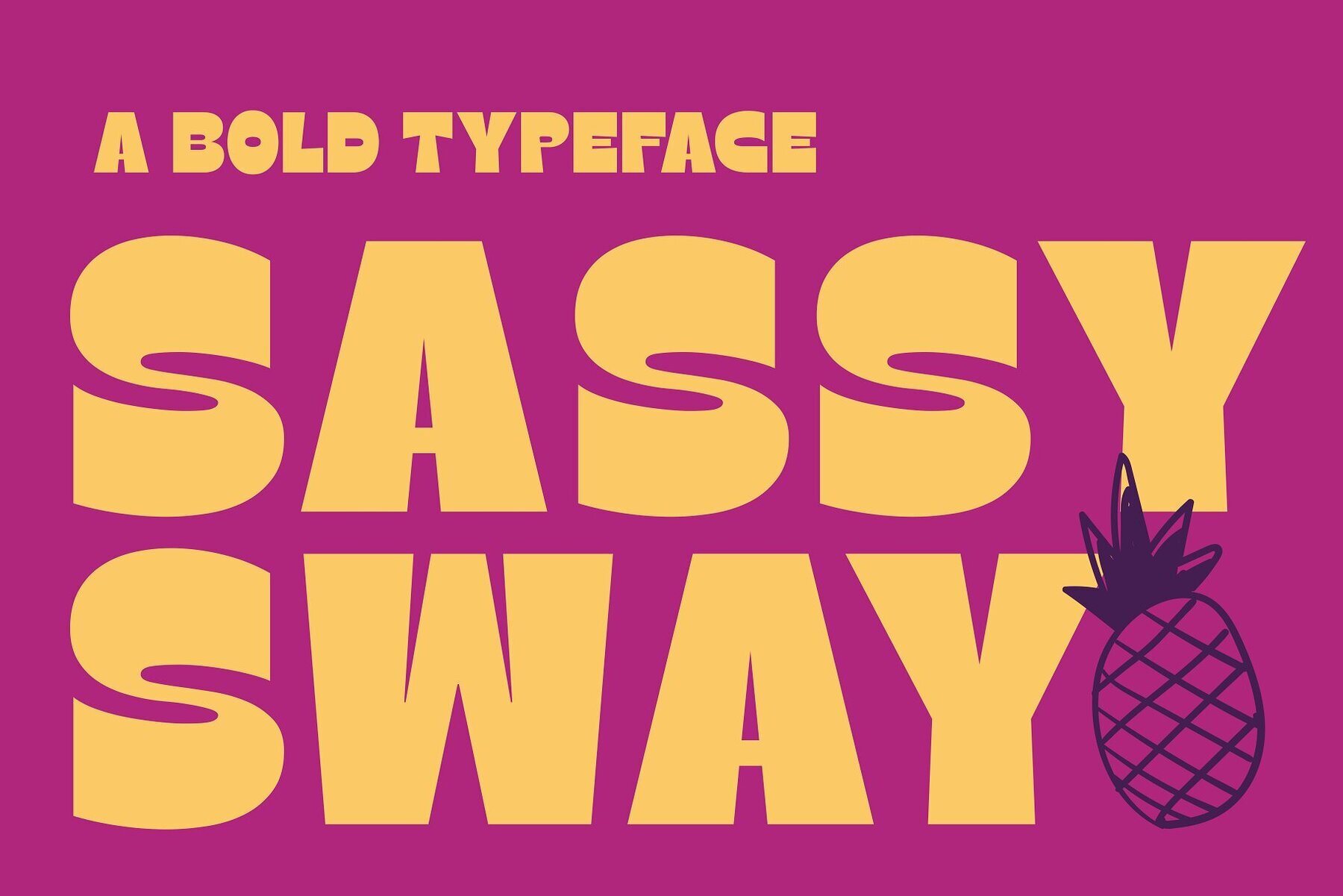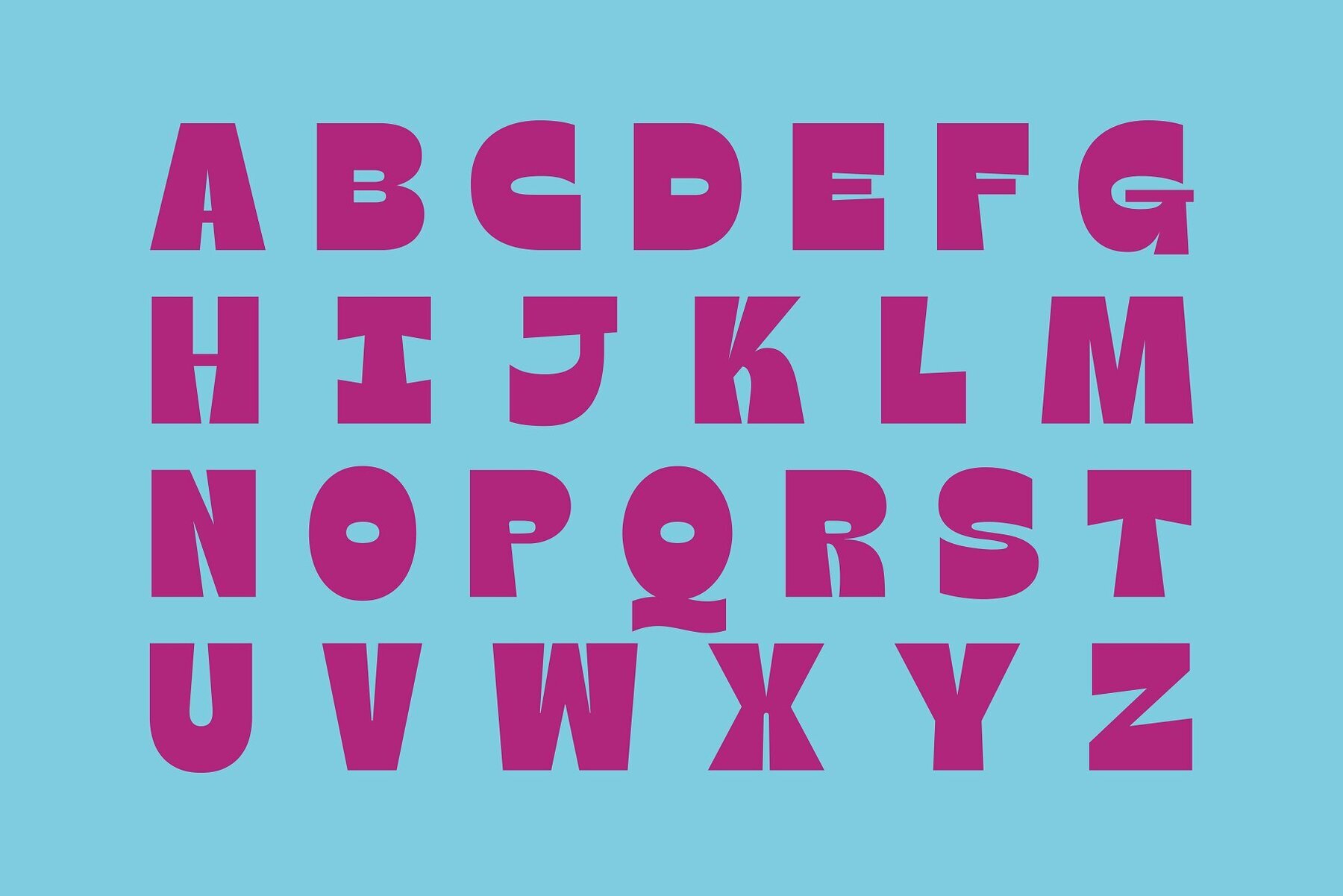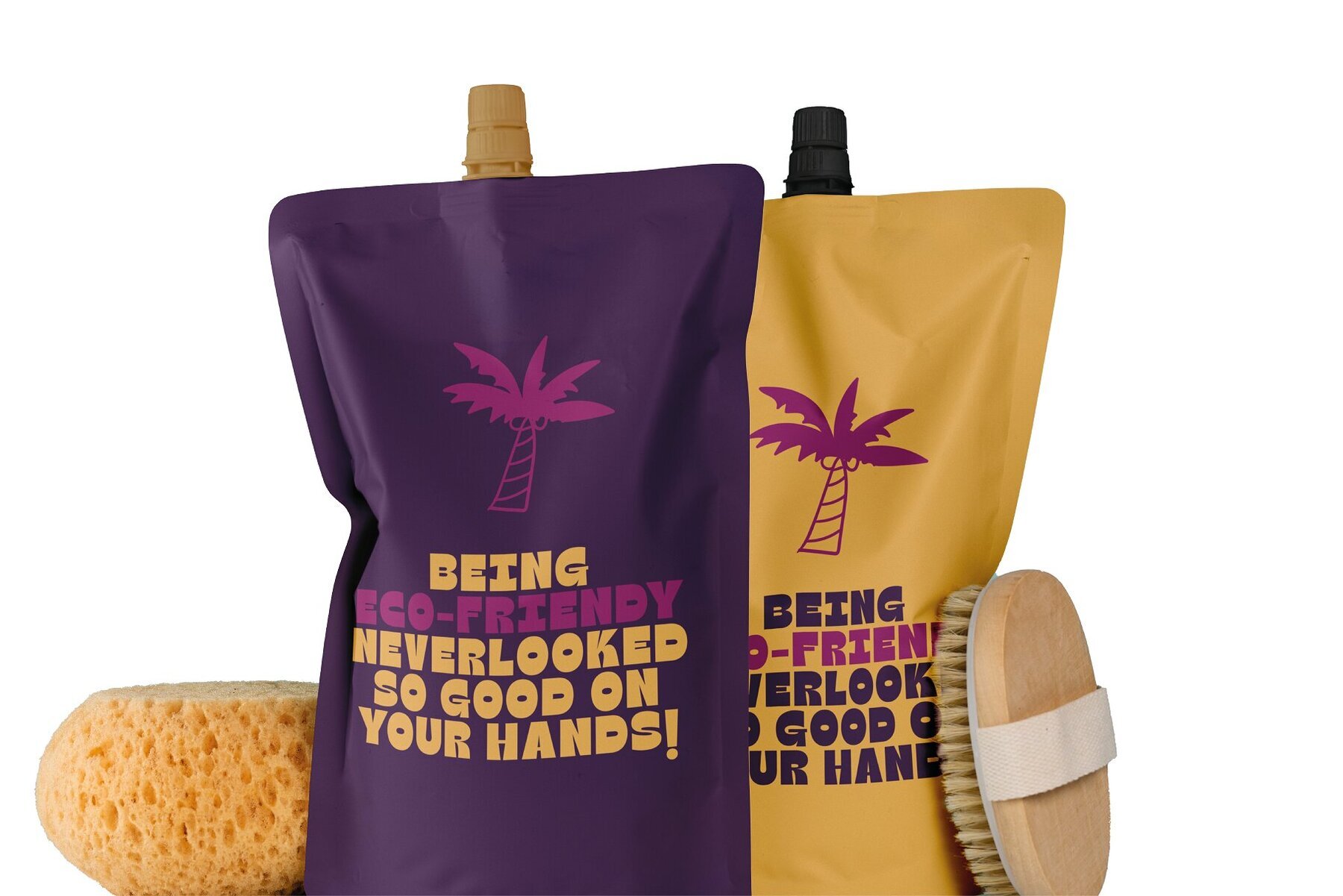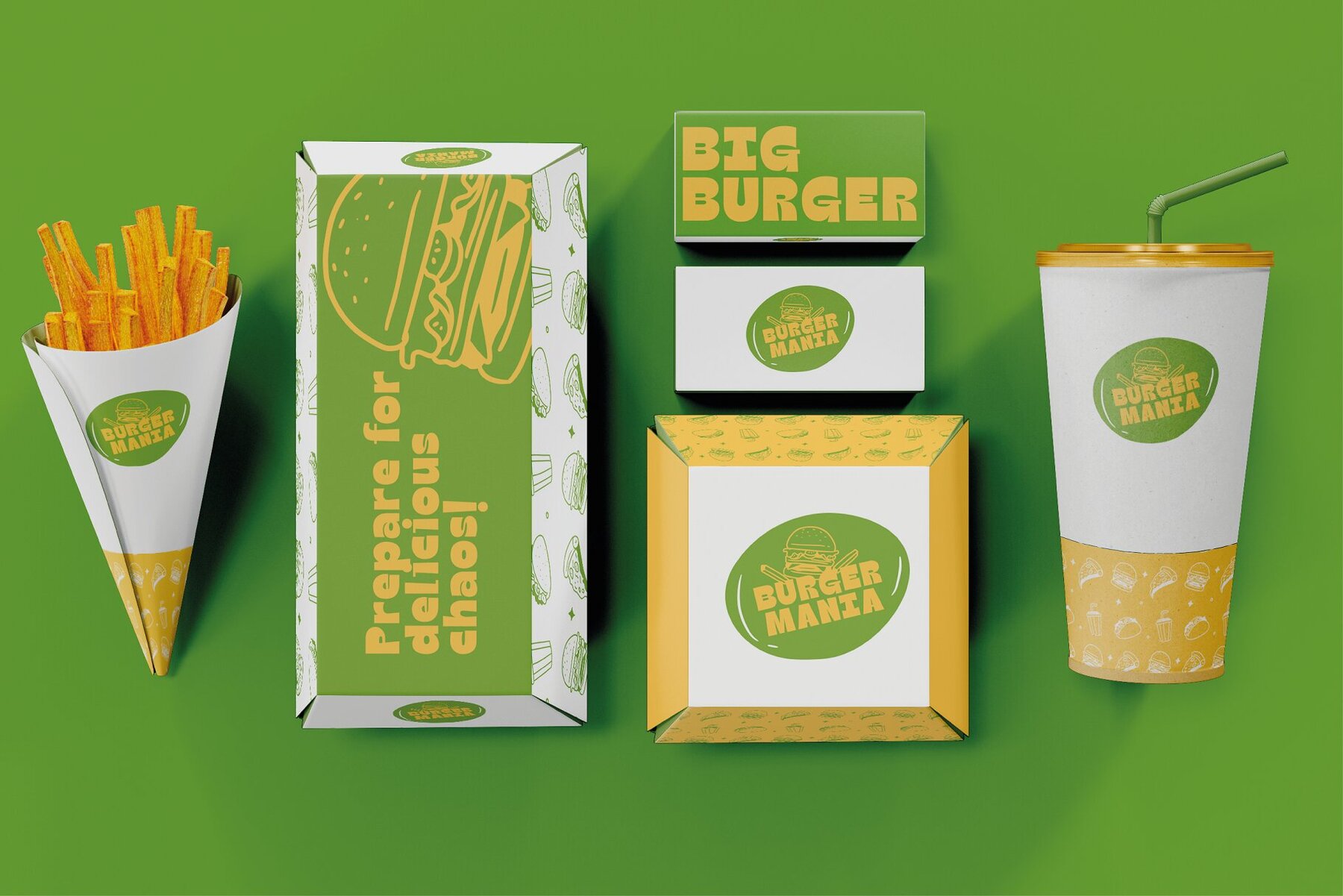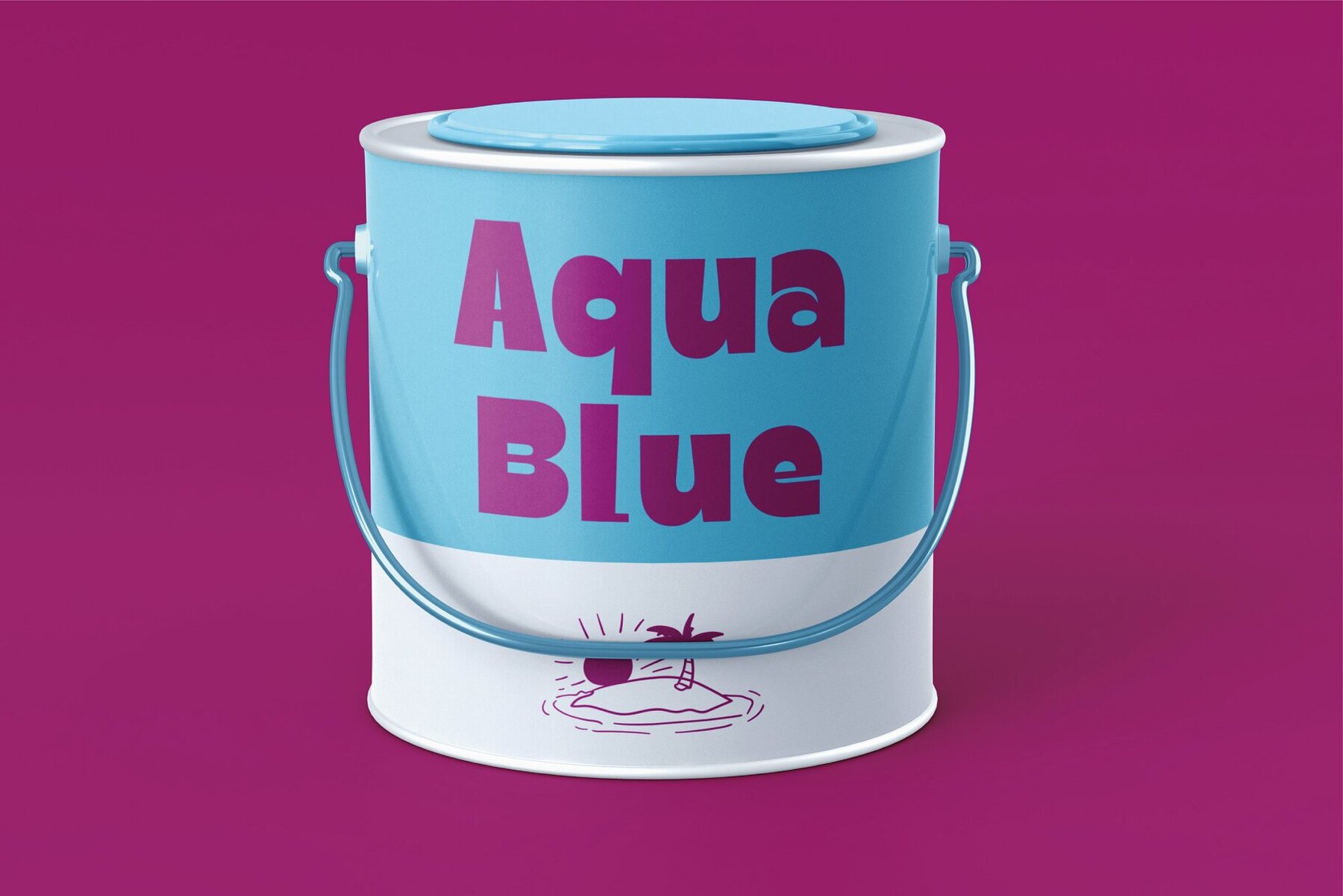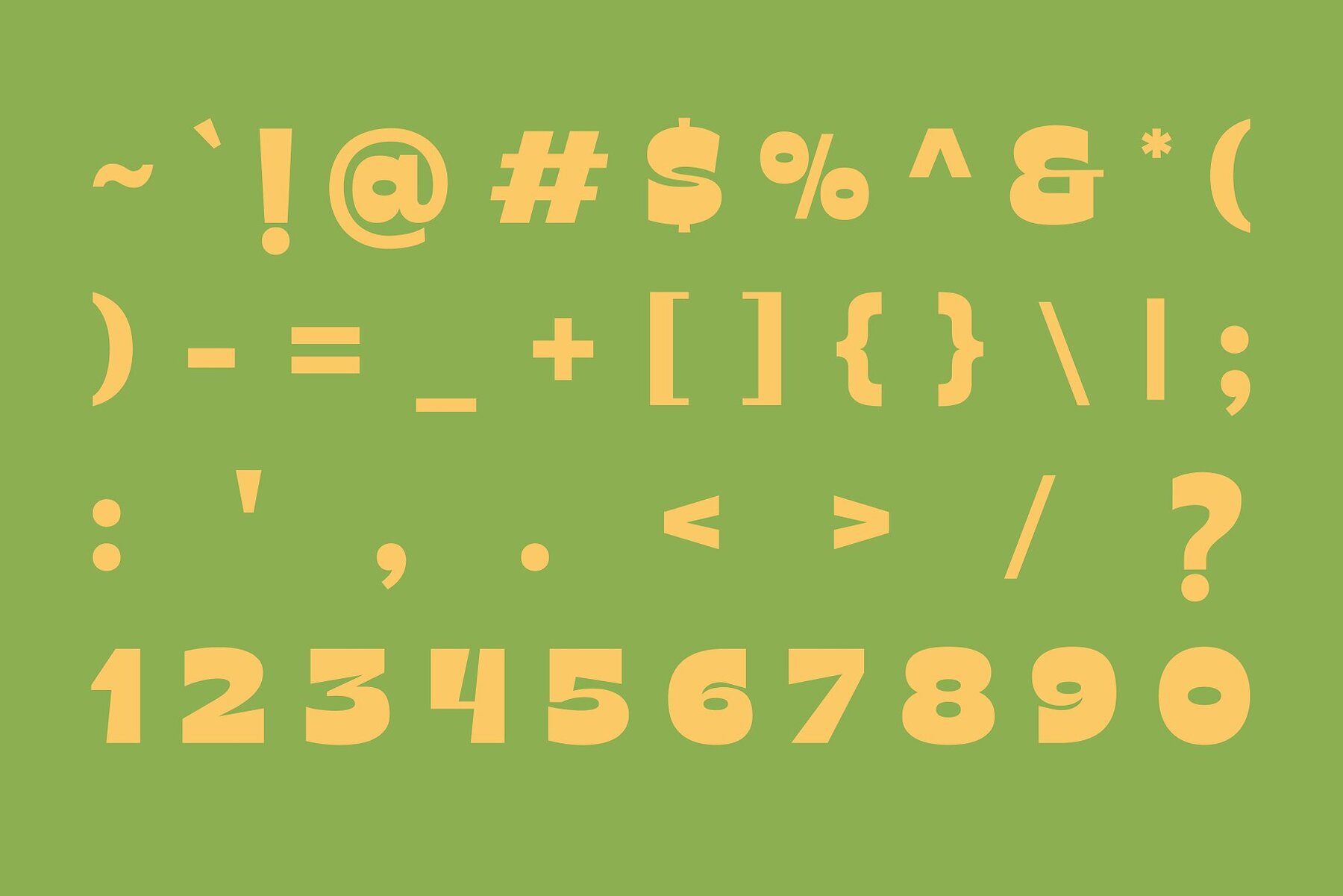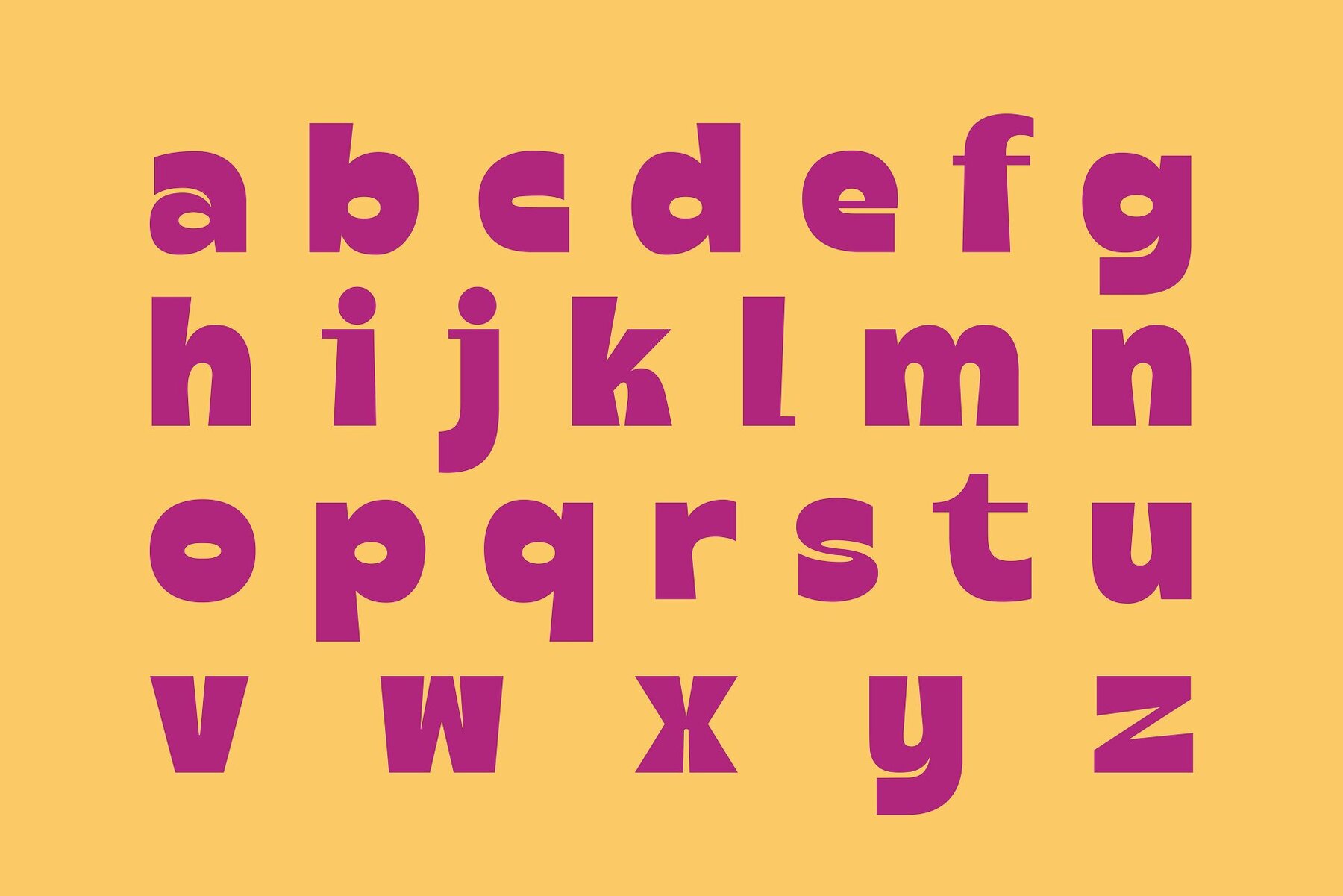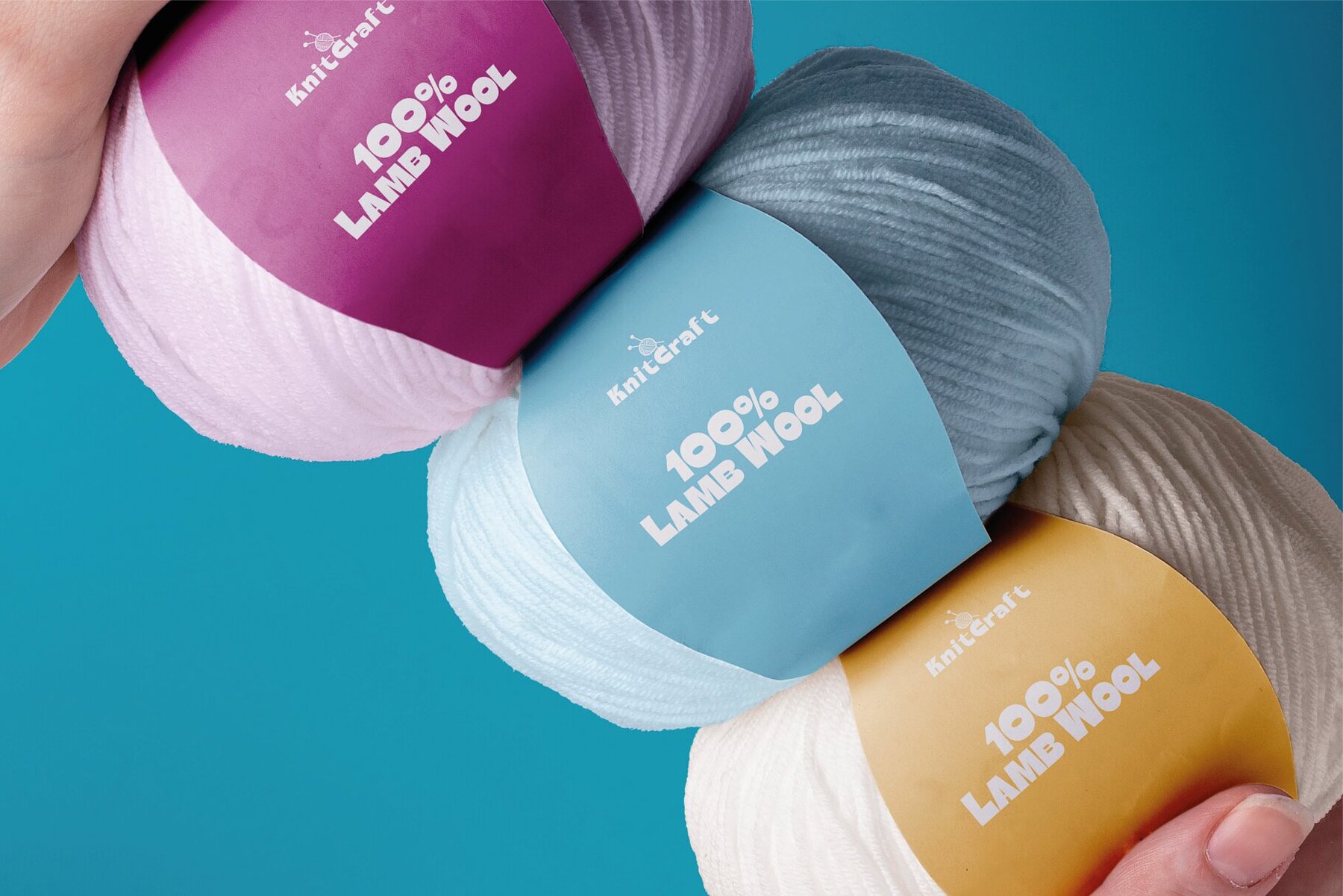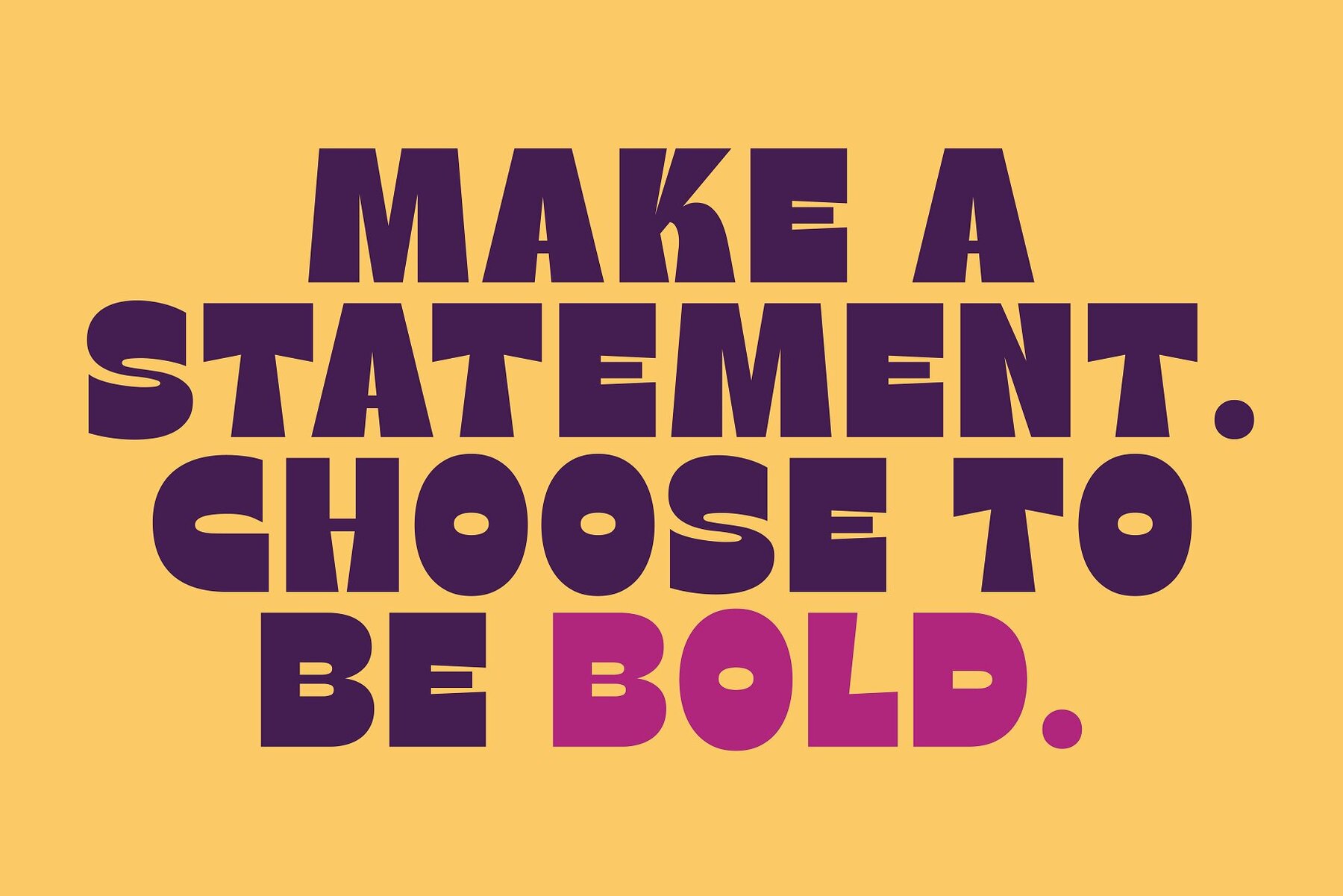
Sassy Sway Font
Sassy Sway Bold
A bold and chunky decorative font that's perfect for headlines, posters, and advertising materials. Its playful and quirky style makes it ideal for projects needing a touch of fun and modern flair, such as branding for youth-centric products or retro-themed designs.